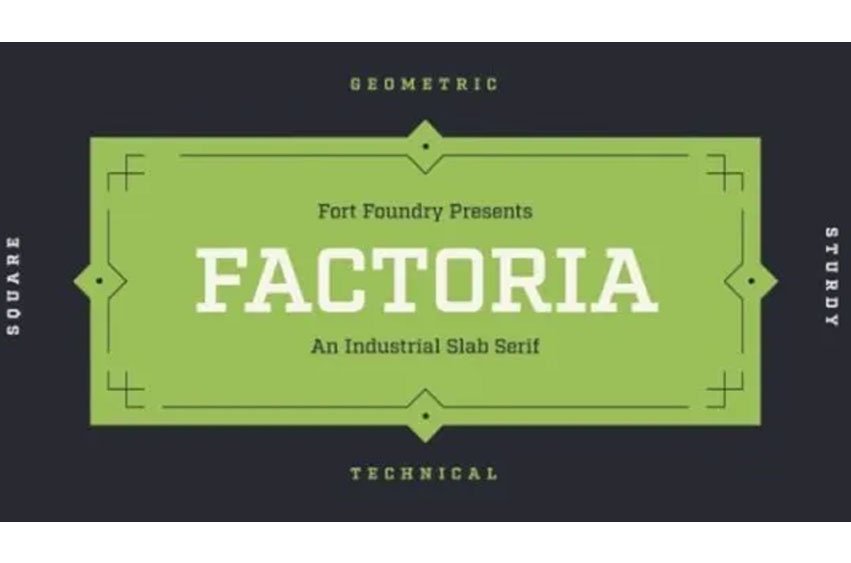
Factoria Font offers a geometric, square slab. A hard-working family can get from the side of the industrial building and into a sports magazine in no time. The thinner weights feature a minimalist, clean and simple style while the thicker ones depict power and personality. I italicsed because I considered that the genre of square slabs and their uses require text on the move. Yet, the set is not far from the Roman style and has visual corrections where necessary.
Factoria has eight weights (Thin to Ultra) along with the matching italics. Slab serif works very well with its sans serif partner, Industry. The font contains a lot of OpenType features for various design applications. Features include: Tables, fractions, subscripts, superscripts, numerators, and denominators.